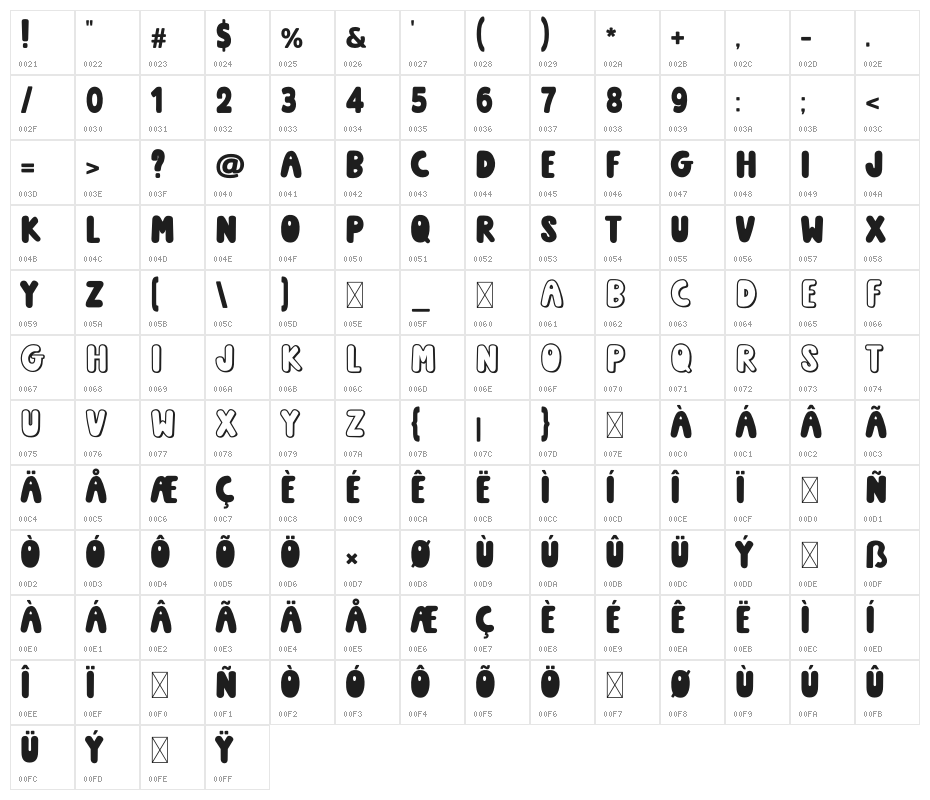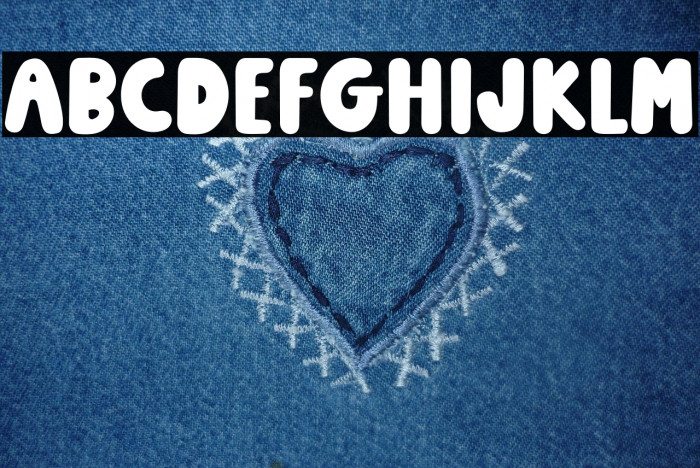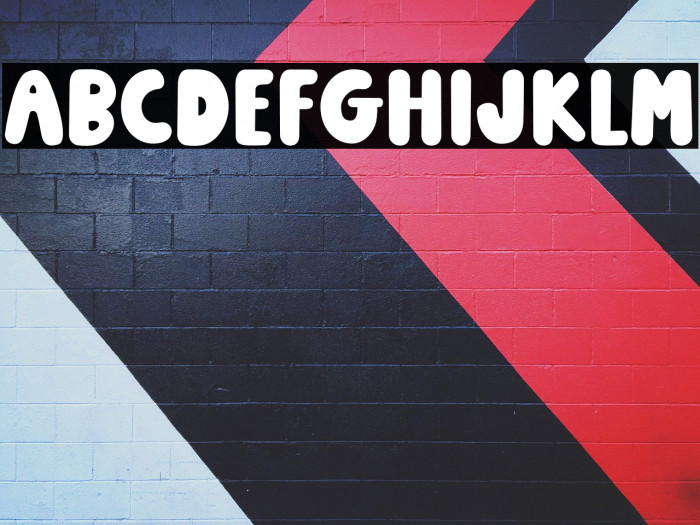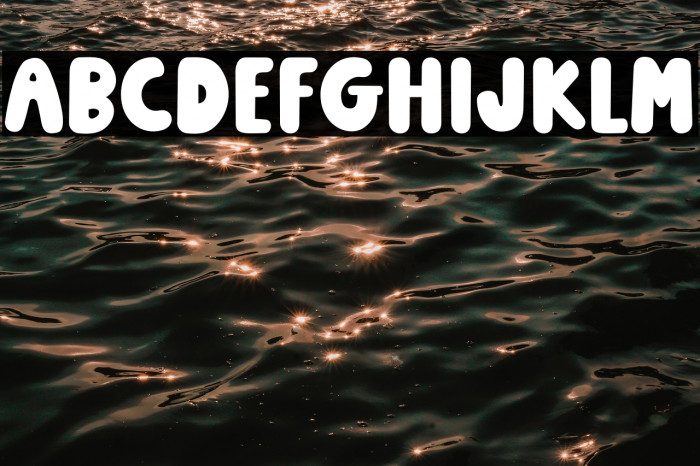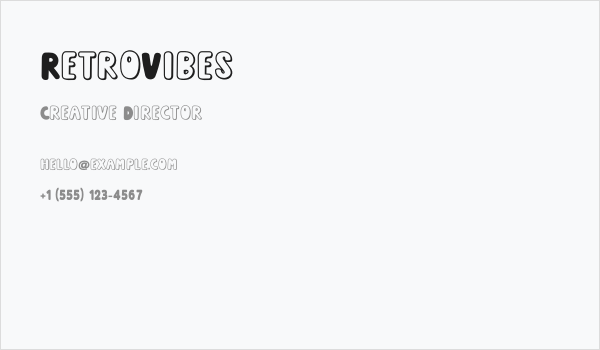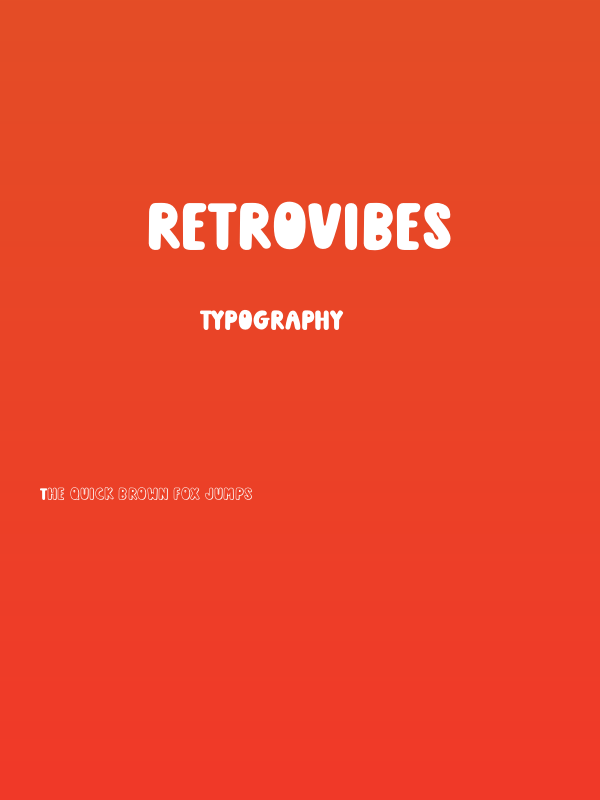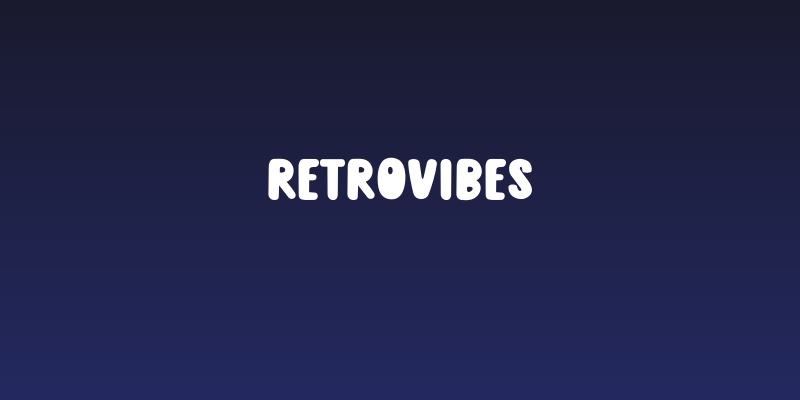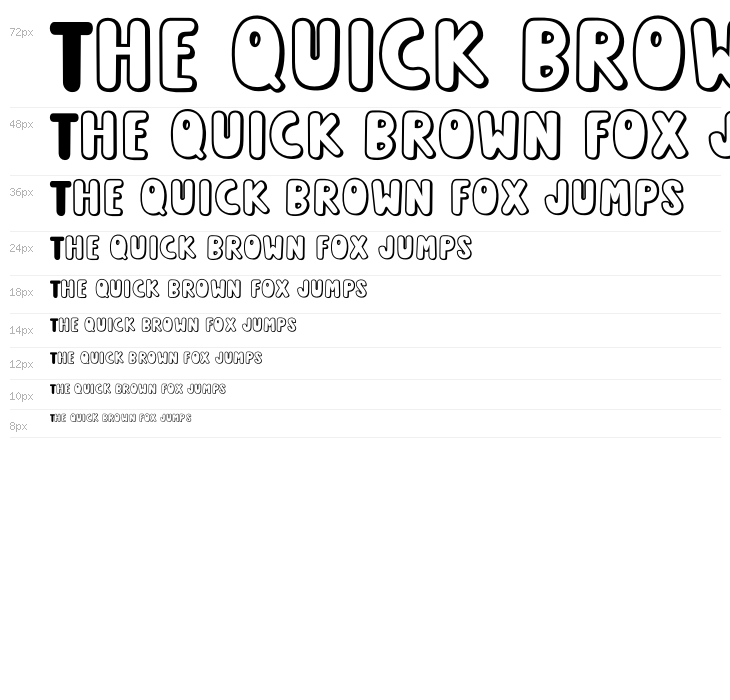
RetroVibes Font
RetroVibes Description
This font exudes a playful and bold character with its thick, rounded strokes and smooth curves. The uppercase letters are robust and full-bodied, creating a strong visual impact. The lowercase letters maintain the same playful essence, with a slightly more compact form. Numbers are equally bold, ensuring consistency across all characters. The special characters are designed to match the overall style, with a touch of whimsy that adds to the font's charm. This font is perfect for projects that require a fun and engaging typeface, capturing attention with its unique and lively appearance.
| Overall Style | Playful, Fun |
| Proposed Projects | Ideal for children's books, playful branding, posters, and event invitations. |